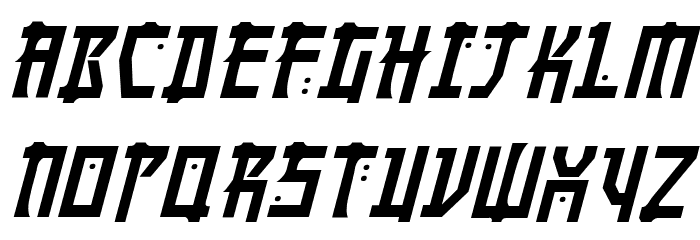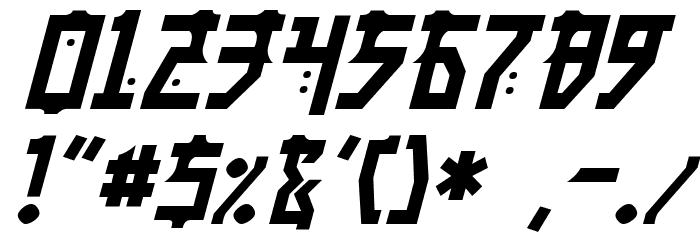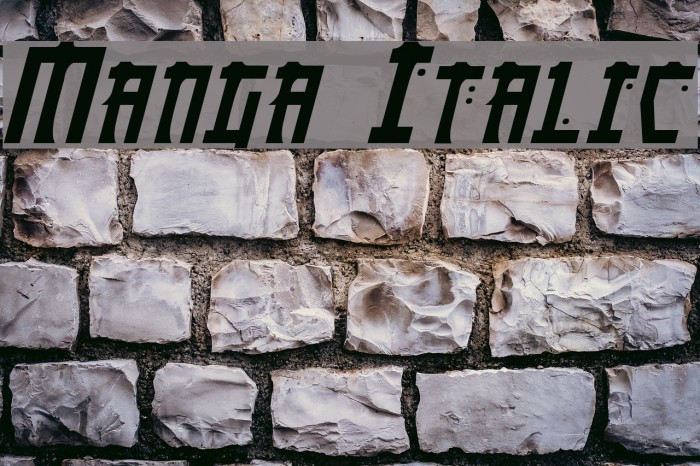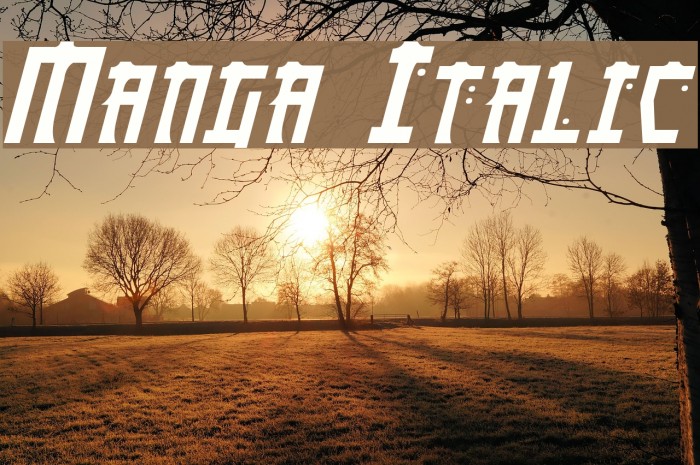
Manga Italic Font
This font features a bold, angular design with a futuristic and edgy aesthetic. The characters are sharply defined with a distinct slant, giving it an italicized appearance. The strokes are thick and consistent, contributing to a strong visual impact. The font includes unique cut-out details within each character, adding a layer of complexity and modernity. Its geometric structure is balanced with a sense of movement, making it suitable for dynamic and contemporary designs. The numbers and special characters maintain the same stylistic elements, ensuring uniformity across all glyphs.
A bold, angular, and futuristic italic font with unique cut-out details.
- Proposed Projects: Ideal for sci-fi themed projects, video game titles, tech branding, and modern posters.